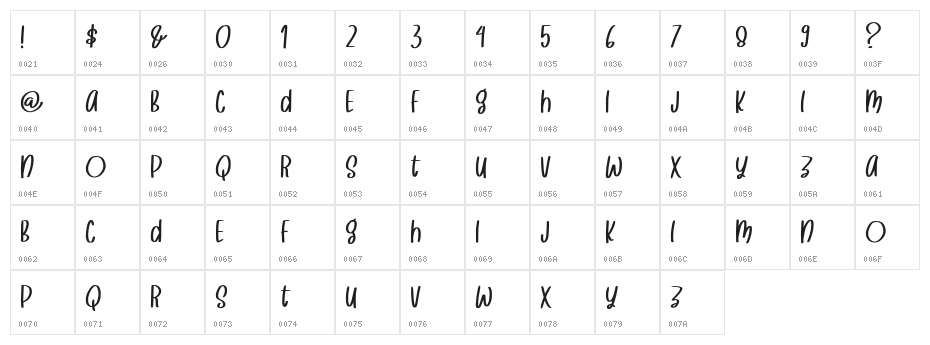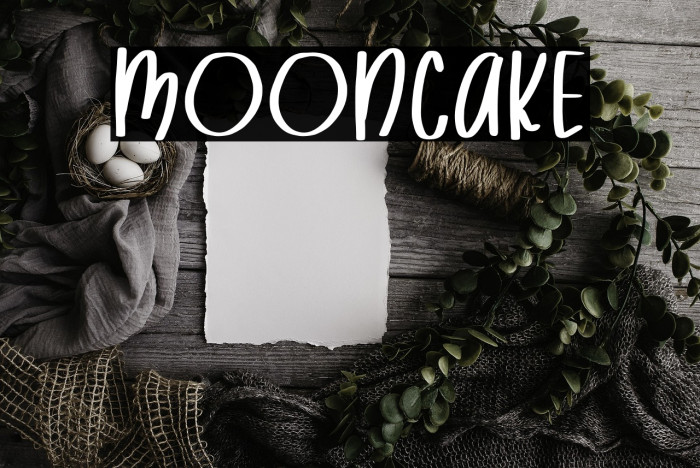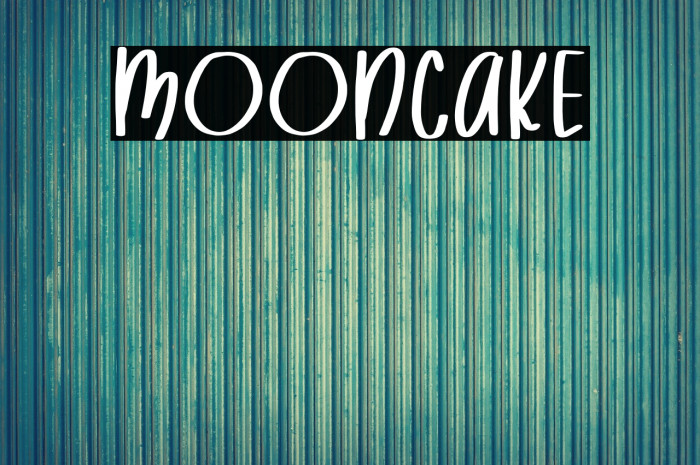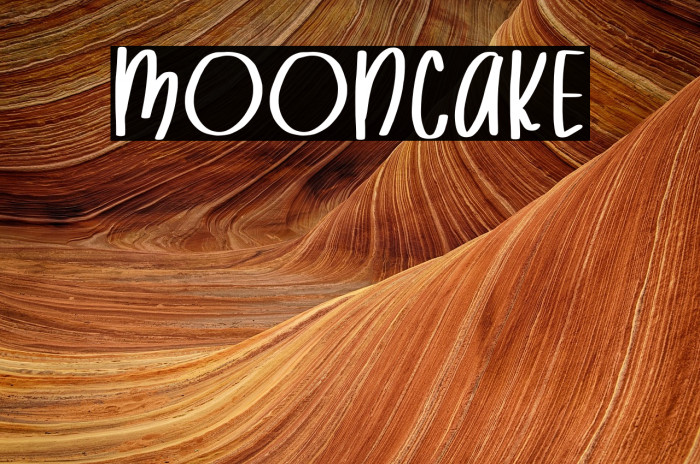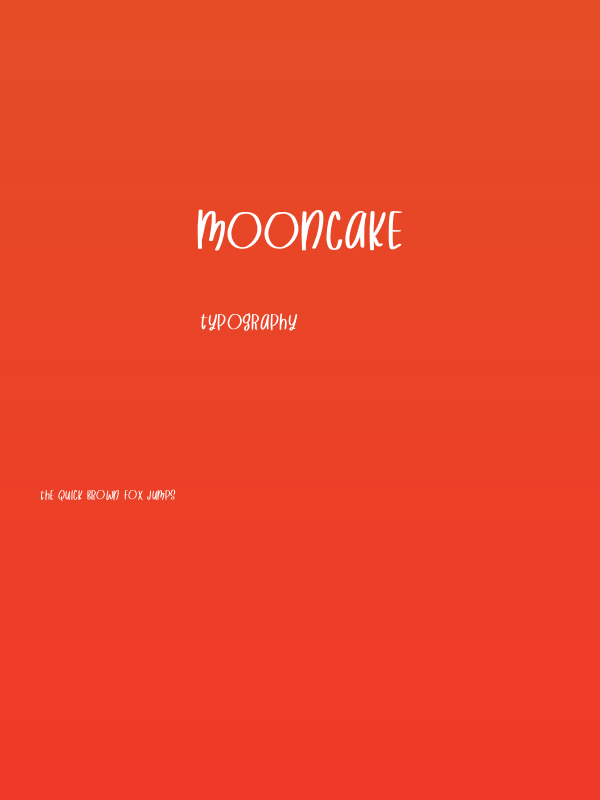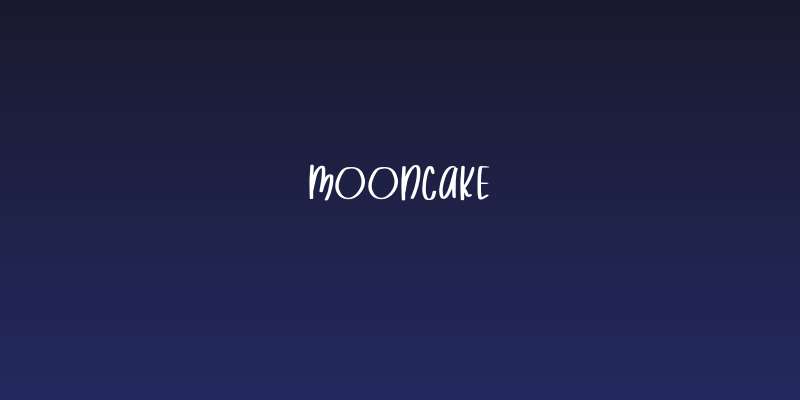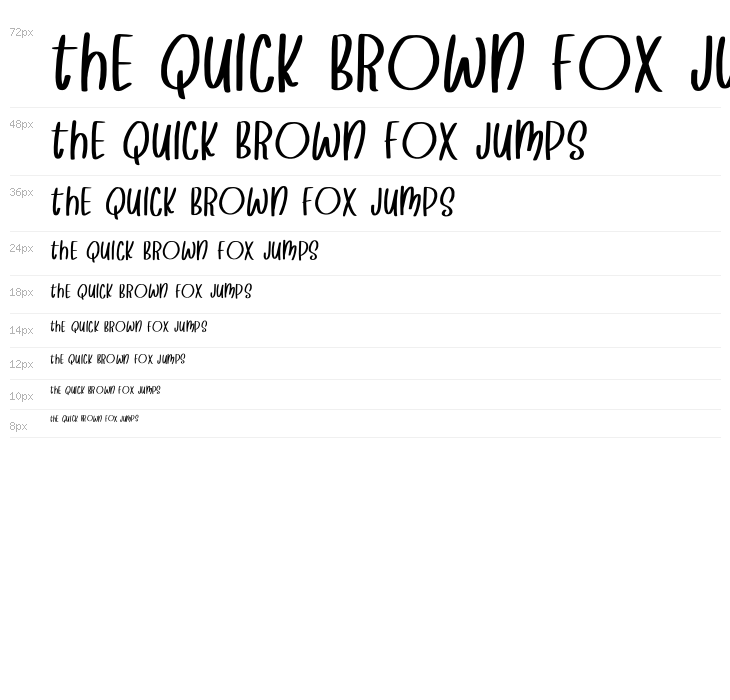
Mooncake Font
This playful and energetic font features a handwritten style with a smooth, flowing appearance. The letters are slightly slanted, giving a casual and friendly vibe. Each character is crafted with a consistent stroke width, providing a harmonious look. The font includes both uppercase and lowercase letters, numbers, and a selection of special characters. Its rounded edges and informal style make it perfect for projects that require a personal touch. The overall design is approachable and versatile, suitable for a variety of creative applications.
| Overall Style | Casual |
| Use Case | Logos, Headlines, Informal text |
| Proposed Projects | Ideal for greeting cards, invitations, personal branding, and social media graphics. |